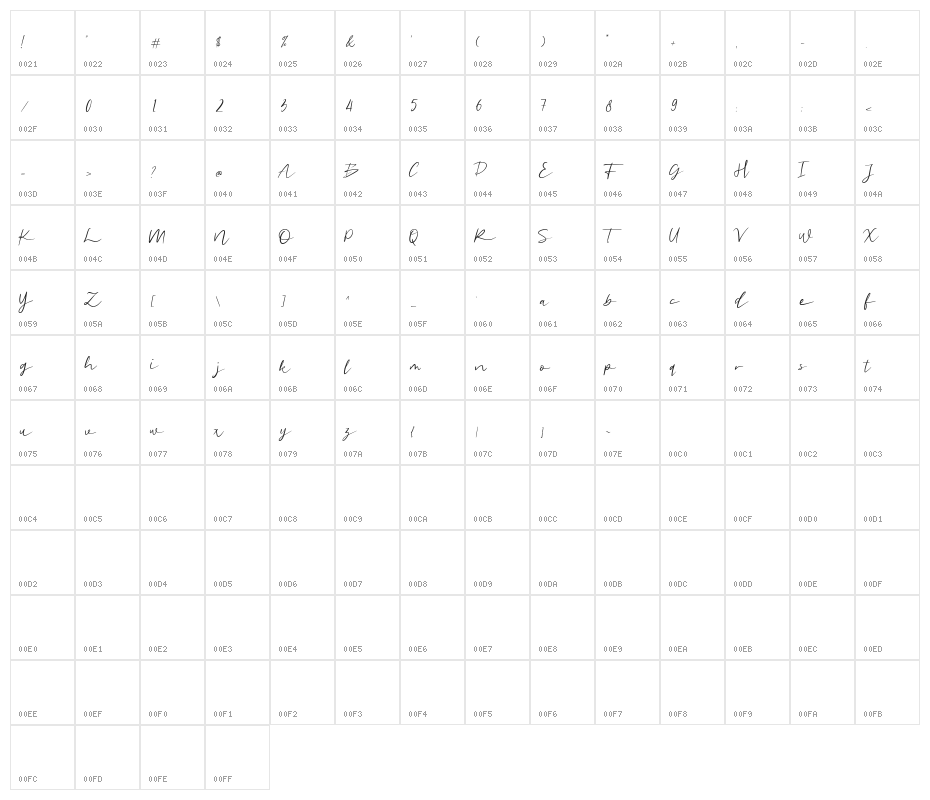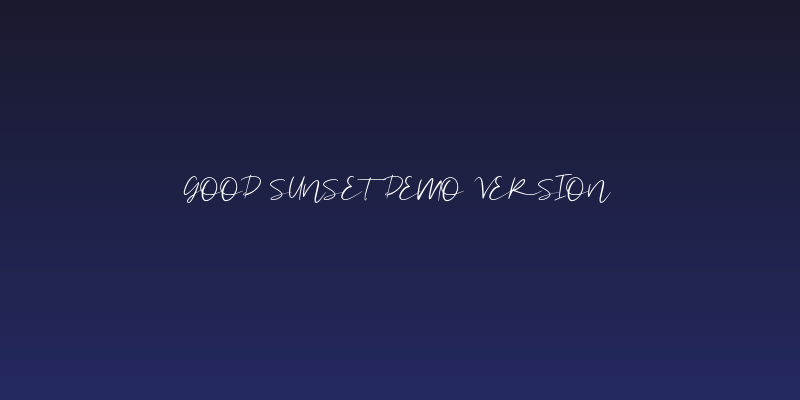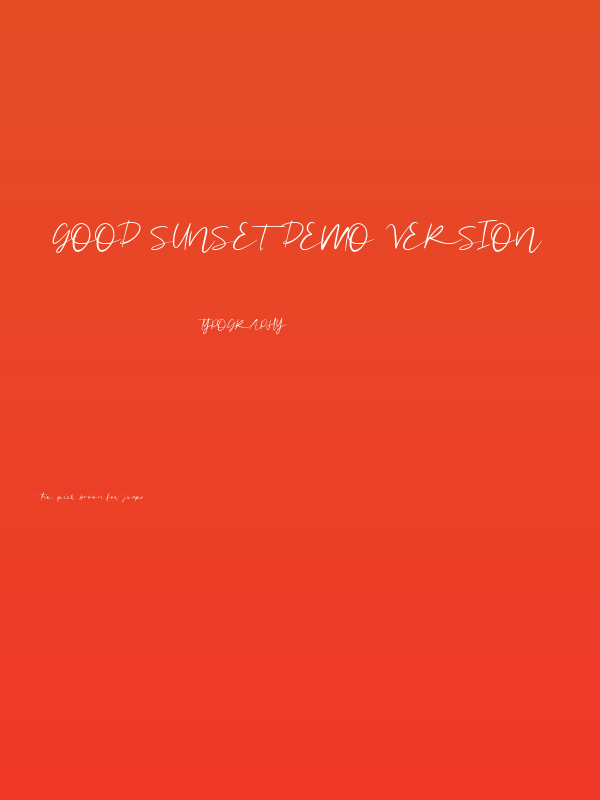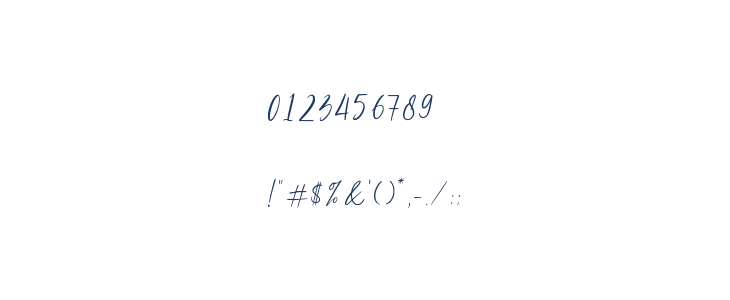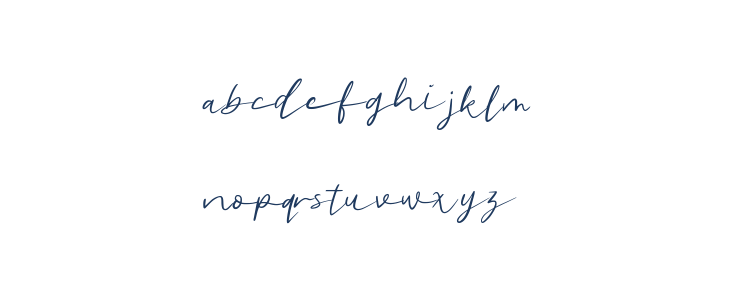
Good Sunset Demo Version Font
Good Sunset Demo Version Description
This font exudes a casual elegance with its handwritten style, characterized by fluid, connected strokes that mimic natural handwriting. The uppercase letters are bold and slightly slanted, giving a dynamic feel, while the lowercase letters maintain a consistent flow, enhancing readability. The numerals are distinct and clear, matching the overall aesthetic. Special characters are thoughtfully designed to complement the letters, ensuring a cohesive look across all text. This font's organic and personal touch makes it suitable for projects that require a human element.